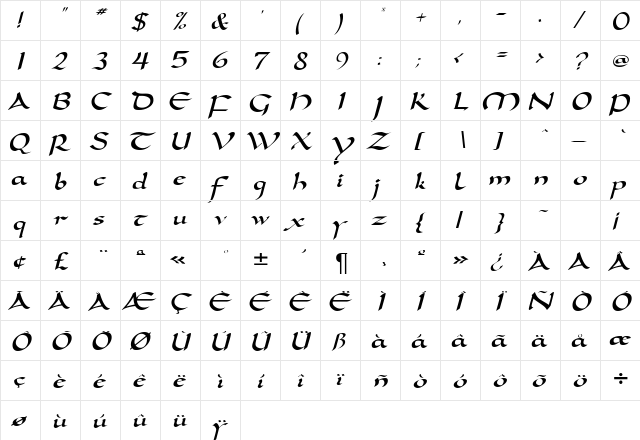
DortmundDB Italic
Design Context for DortmundDB Typeface
DortmundDB takes a measured approach to typography — its balanced proportions and neutral character make it a reliable workhorse for both digital and print work. The slanted form adds forward momentum and visual energy.
Pro Tip: Use DortmundDB for emphasis, pull quotes, and subheadings where its slanted energy can add rhythm to the layout.